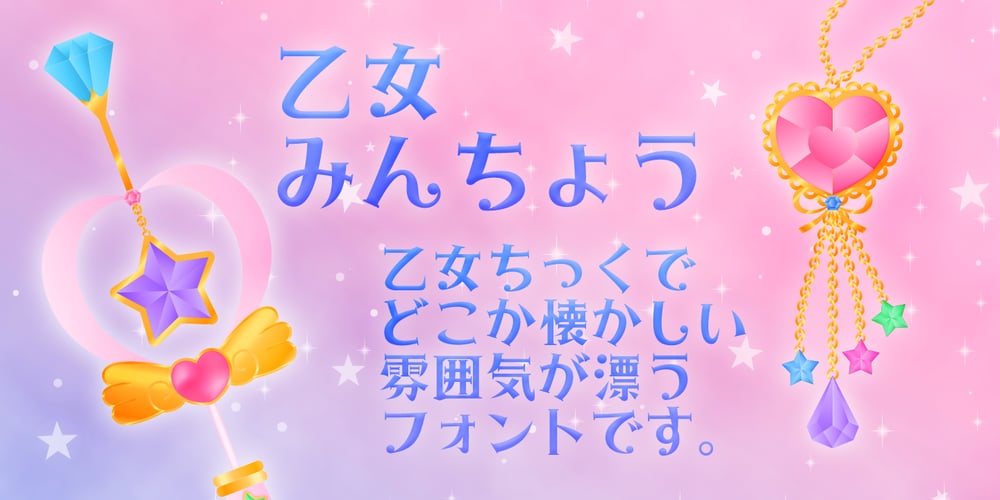
Otome Mincyou
Otome Mincyou font
Otome Mincyou Font Family was designed by Norio Kanisawa and published by Norio Kanisawa. Otome Mincyou contains 1 styles and family package options. This font is I thought “I wanna try to make cute Mincyoutai.”, and made it. I think it is cute font but may have a little nostalgia. It corresponds to Hiragana · Katakana · Alphabet · Numerals · Symbols · Kanji(chinese characters). You can also write vertically. You can use it easily, because it contains JIS first · second level, and IBM extended Kanji(about 6700chinese characters). Since it is little bold Mincyoutai, I think it is useful for headlines and text. About it’s name, it is simple but has some childhood and romantic, I named this font “OtomeMincyou”. I’m hope you like it. <「乙女みんちょう」紹介文> 「かわいい明朝体を作ってみたい!」と思い作ったフォントです。 かわいい中にもどこか懐かしさを持ったフォントになったかと思います。 ひらがな・カタカナ・アルファベット・数字・記号類・漢字に対応。縦書きもできます。 漢字はJIS第一水準・第二水準・IBM拡張漢字(約6700文字)に対応しているので、使いやすいかと思います。 ちょっと太めの明朝体なので、本文にも見出しにも使えると思います。 名称については、シンプルだけども夢見る少女のような幼さ・ロマンチックさを持っているなぁと思ったので「乙女みんちょう」と名付けました。 皆様のお役に立てれば幸いです。 <スタイルカテゴリー> 明朝体、装飾